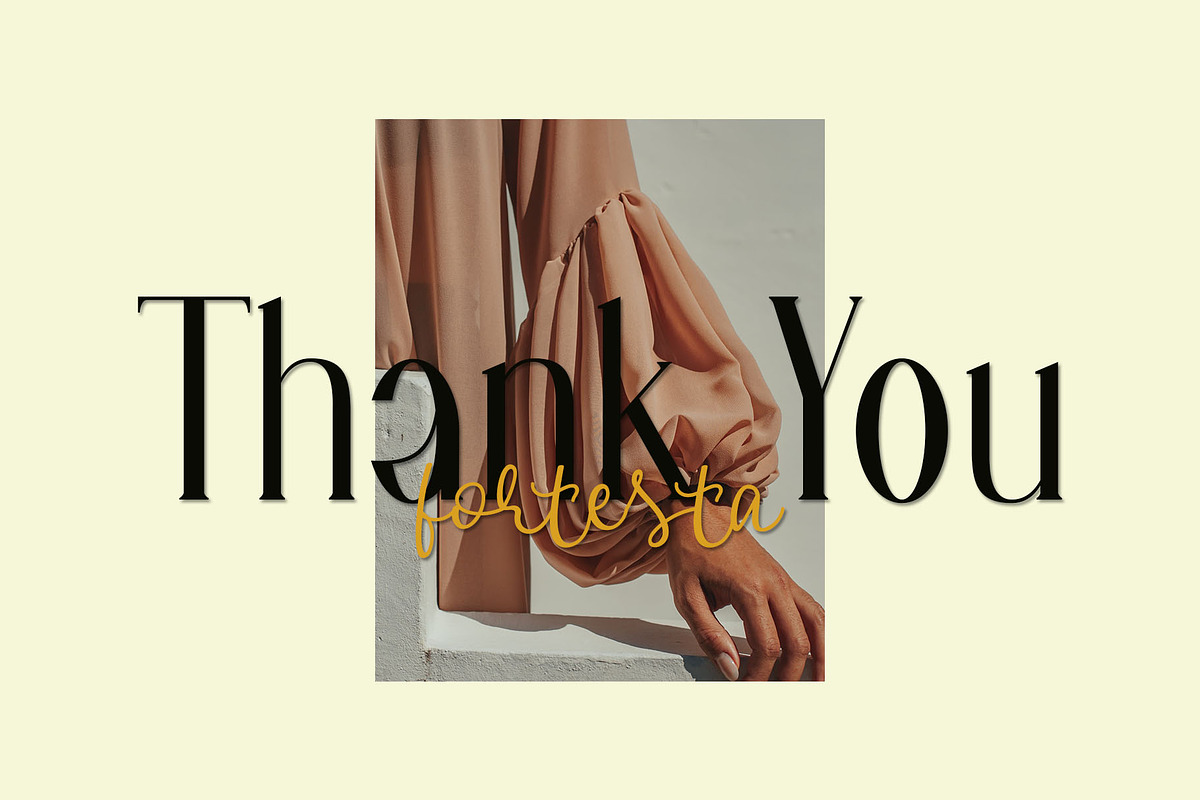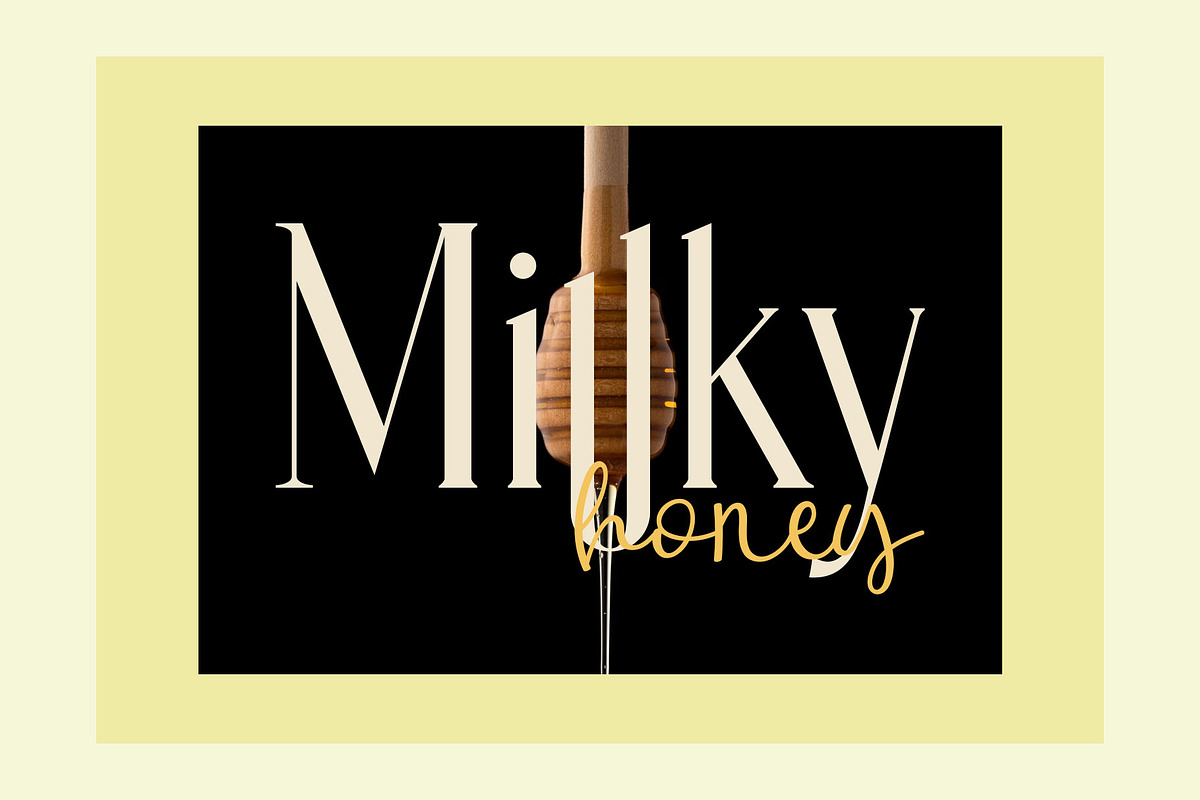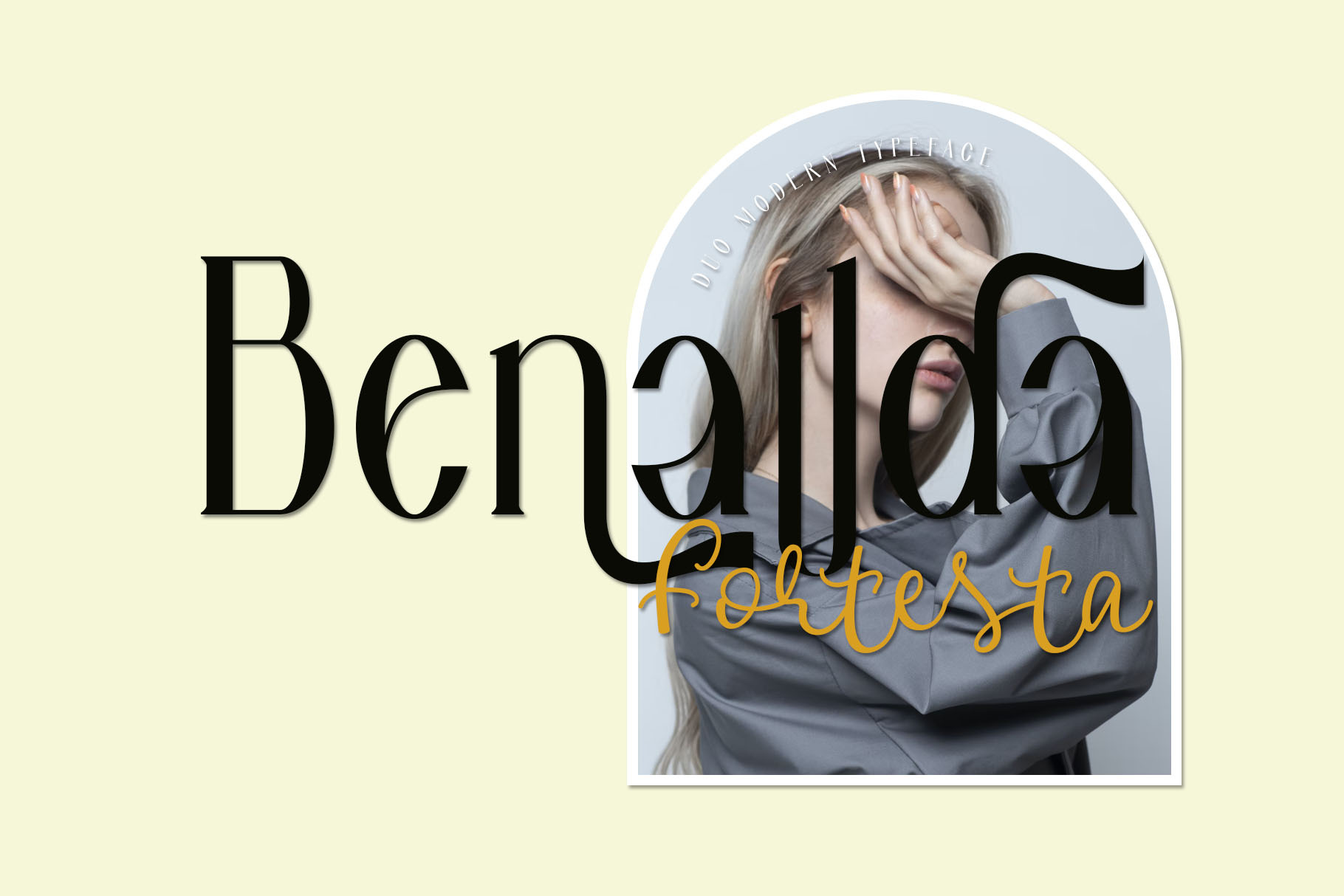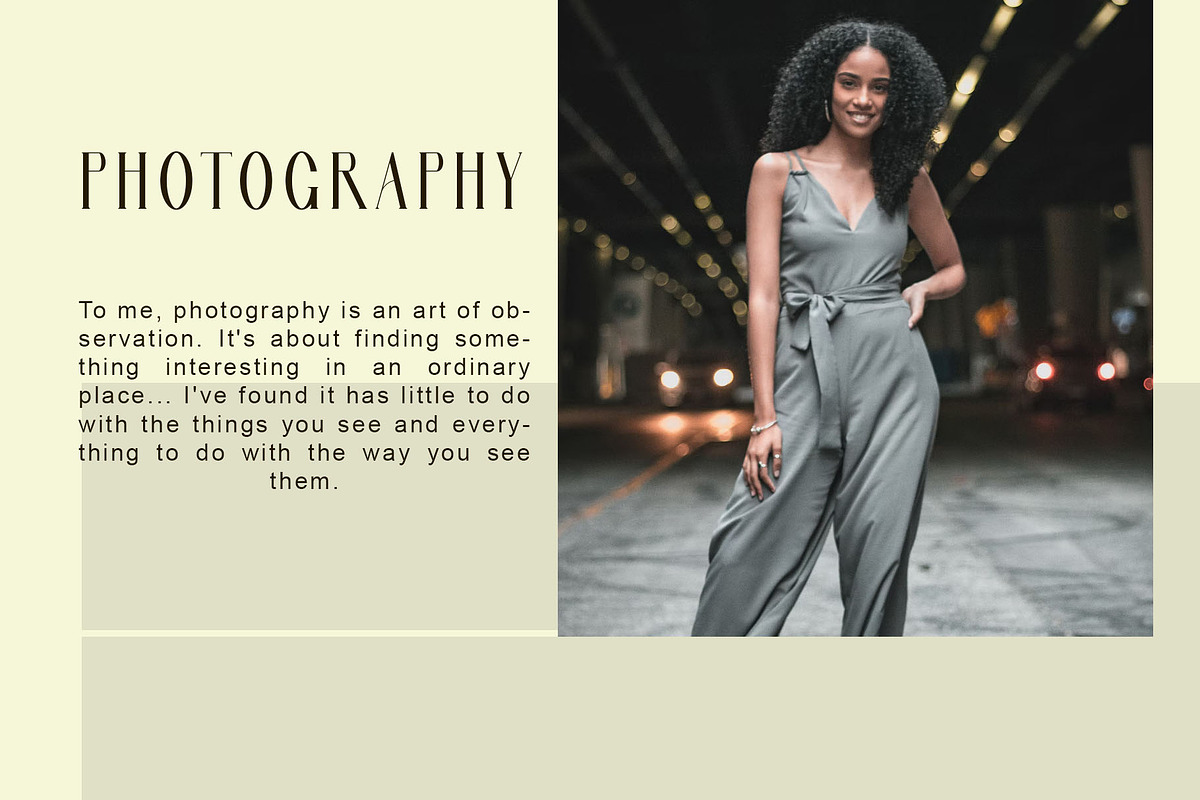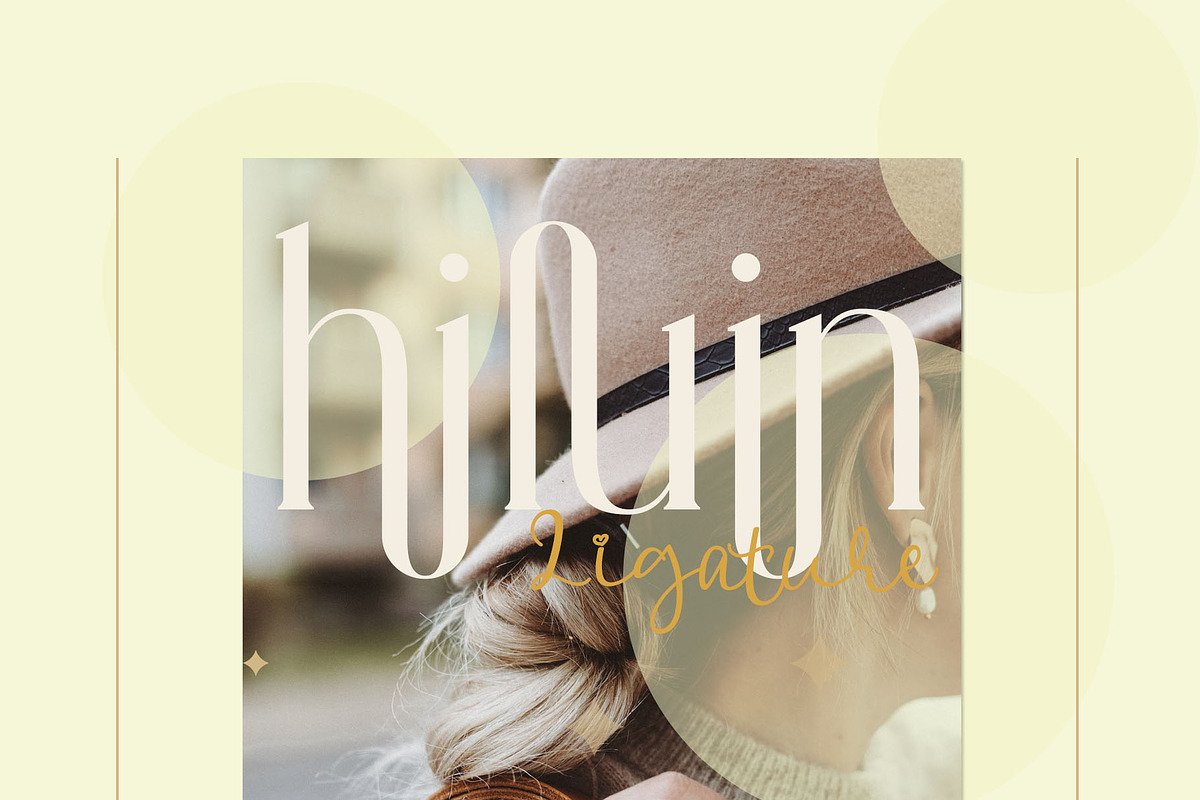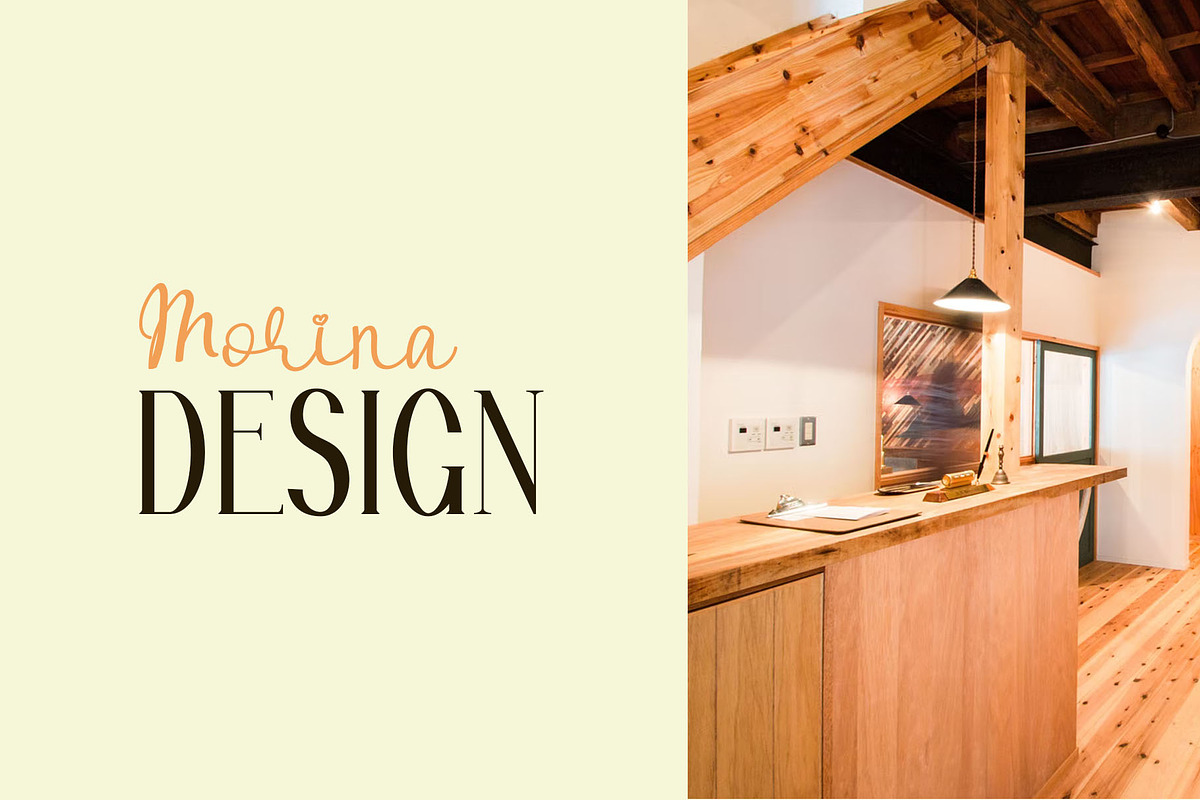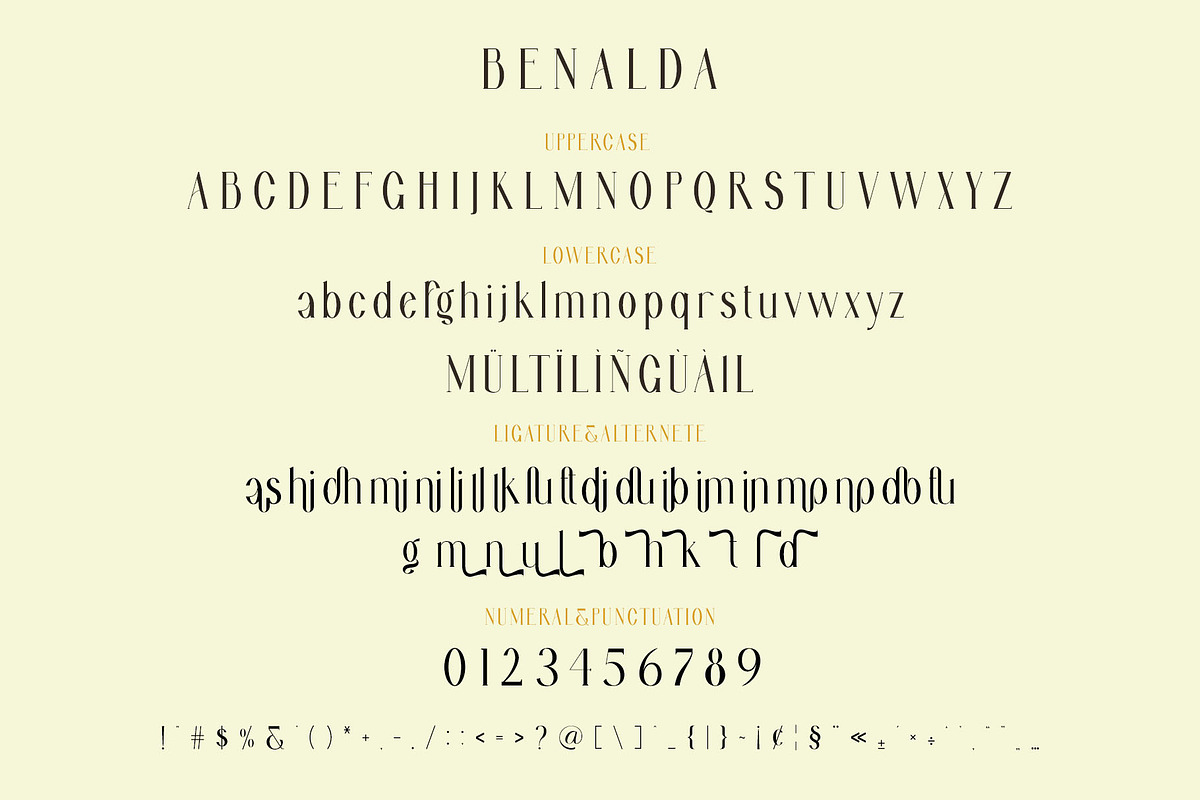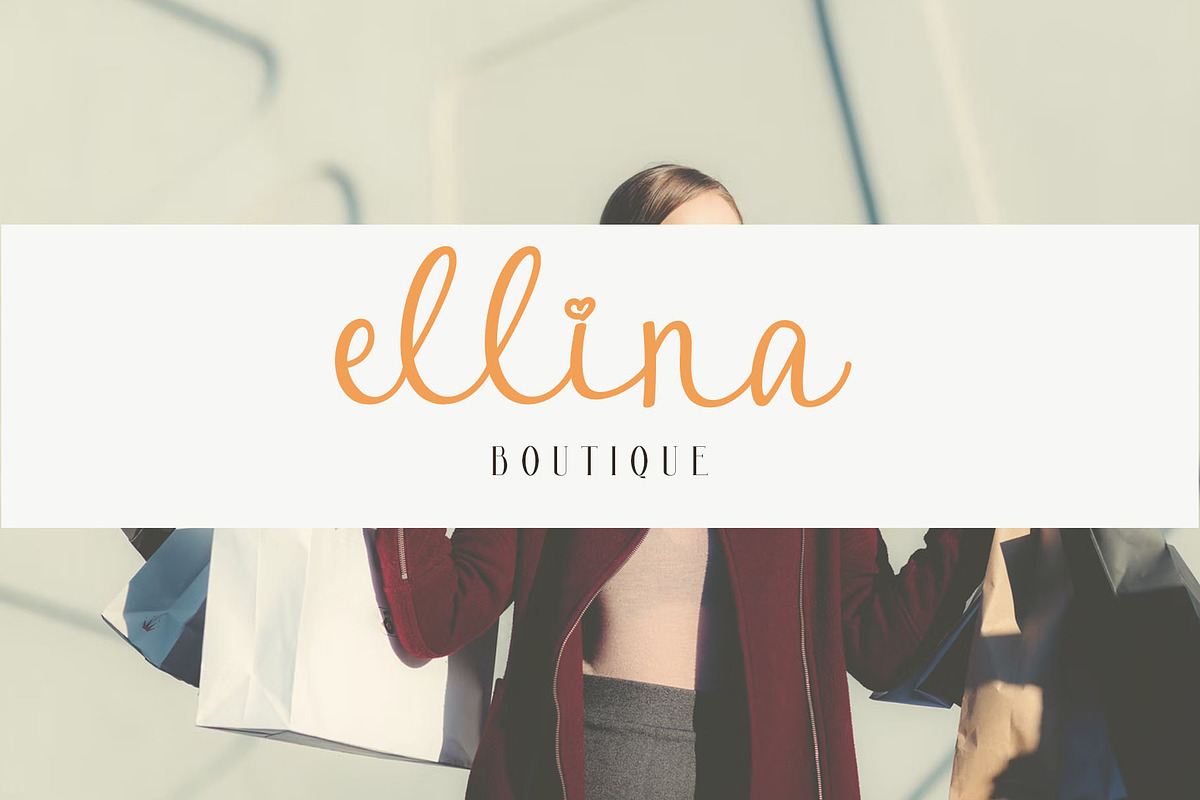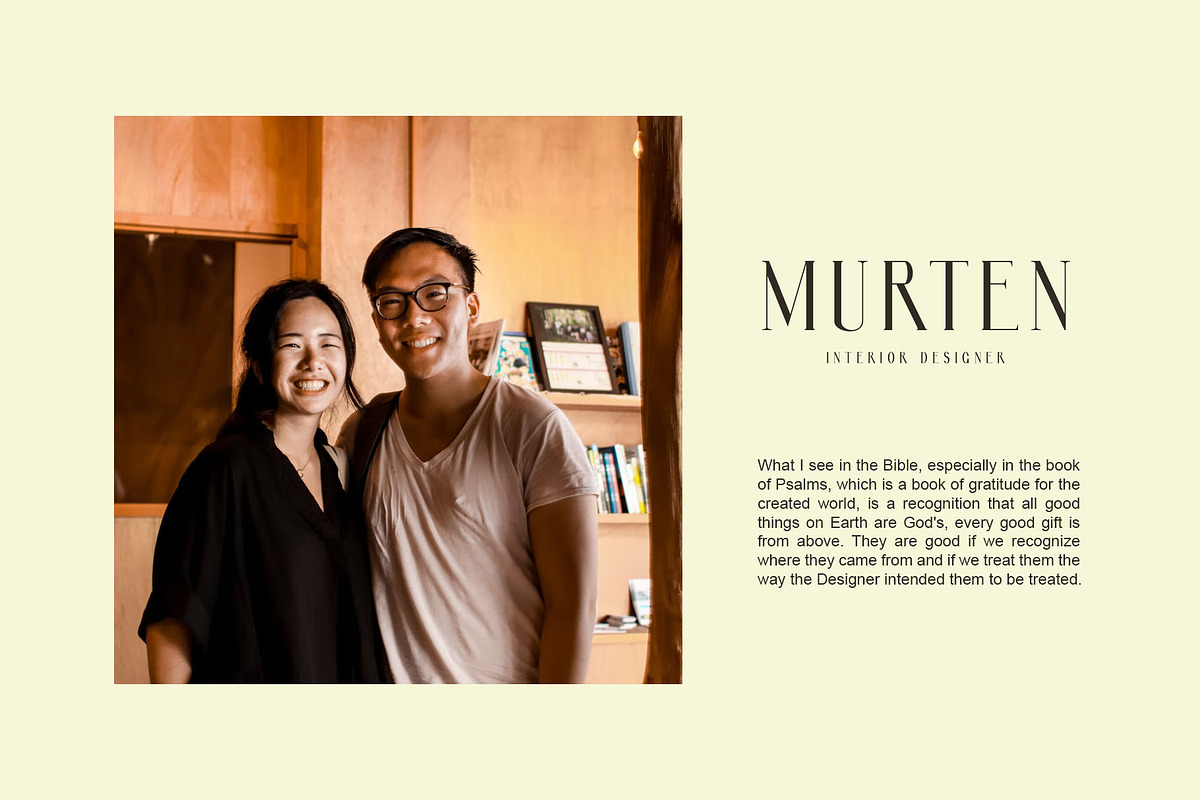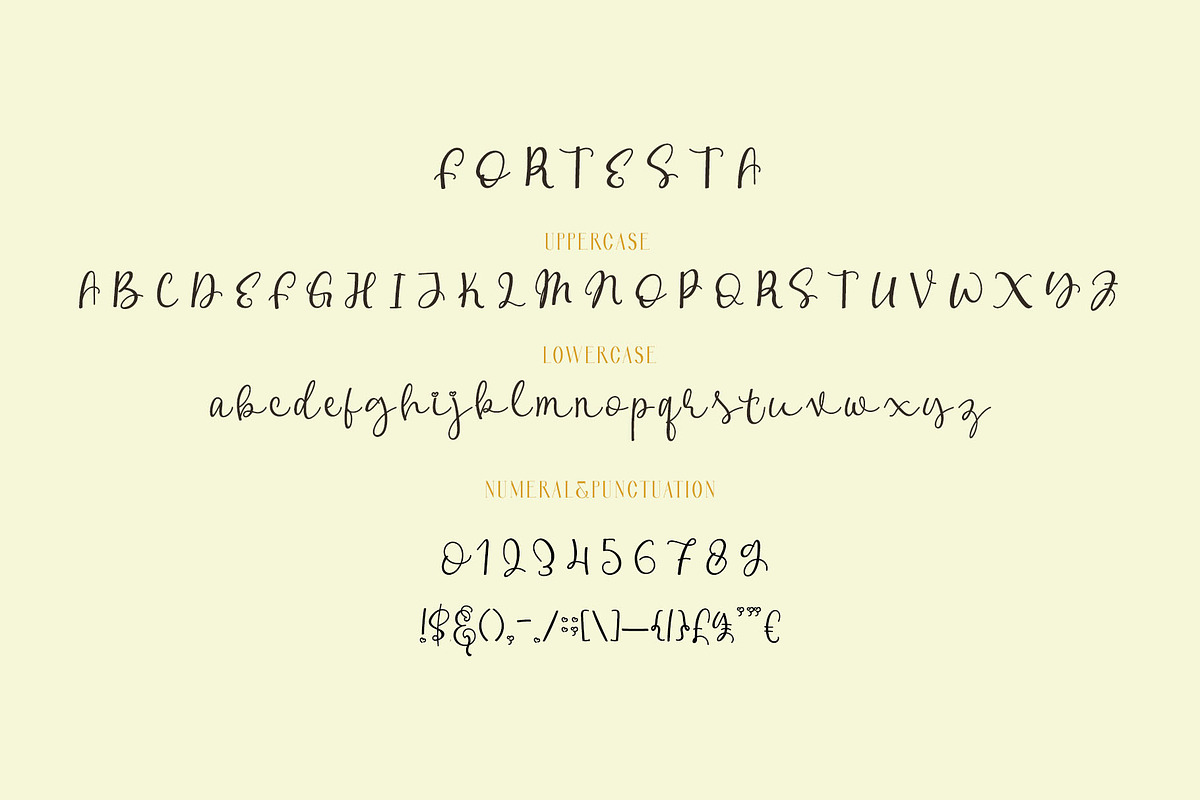
Benallda Fortesta Duo Font
Benallda Fortesta - Stylish Duo Typeface Serif inspired by the famous minimalist logo perfect for the purposes of designing templates, brochures, videos, advertising branding, logos and more.